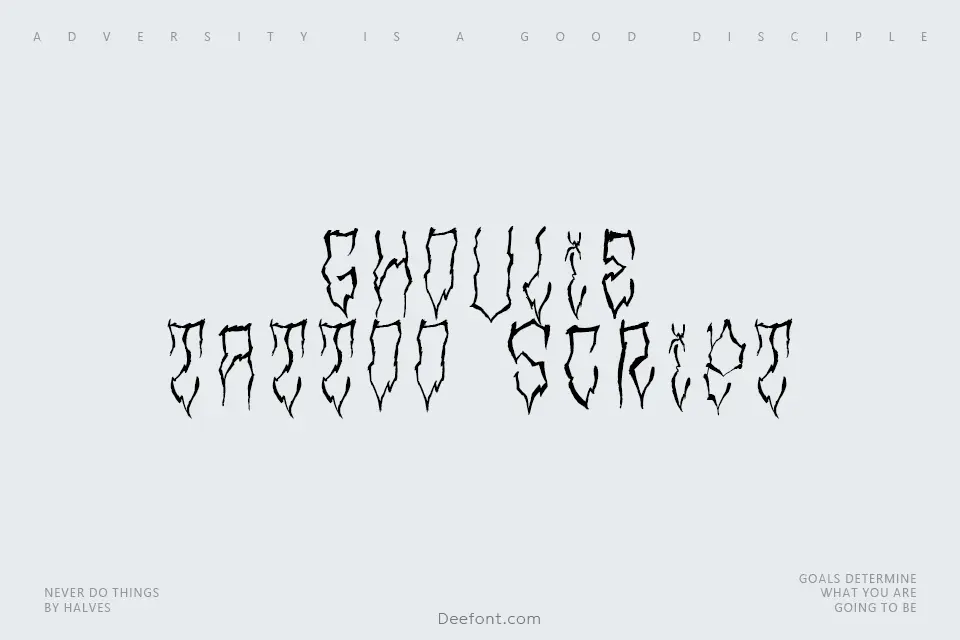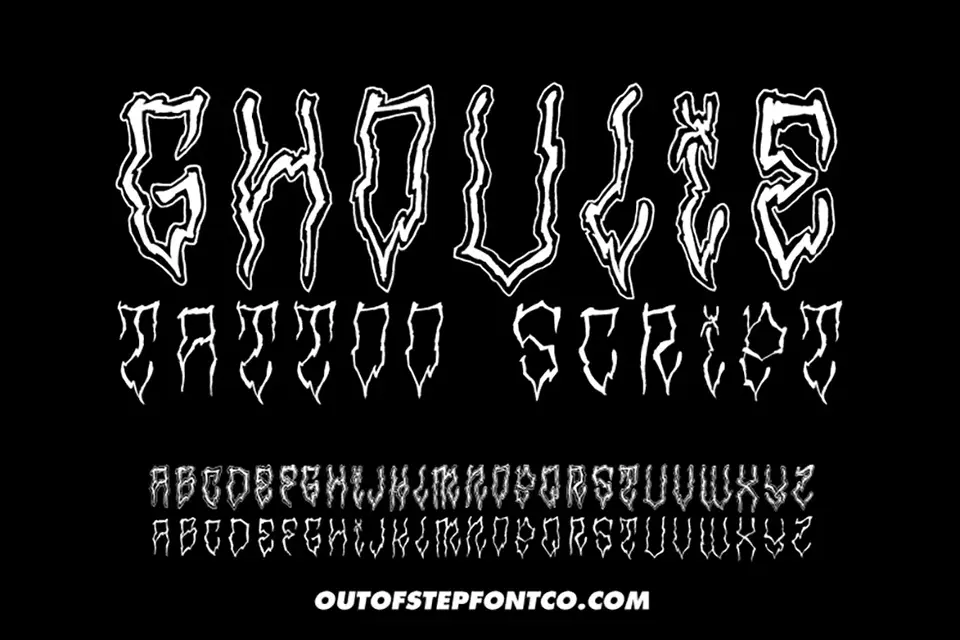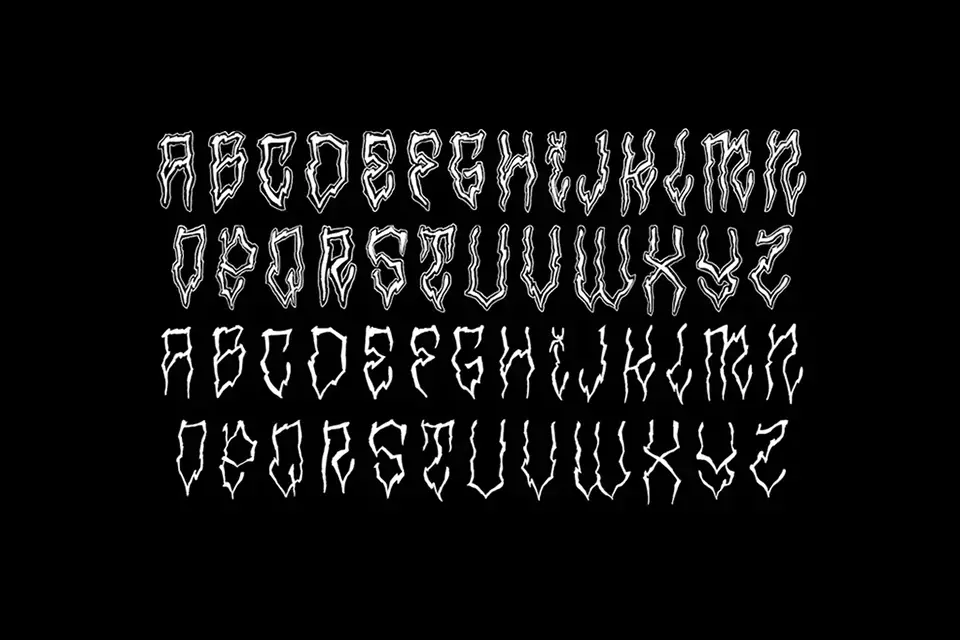
Ghoulie Tattoo Script Font
Ghoulie Tattoo Script is a distinctive hand-drawn tattoo font inspired by classic knuckle tattoo script designs. Created by an experienced font designer, this versatile typeface features authentic, edgy letterforms with minor imperfections that add character and authenticity. Perfect for tattoo flash designs, merch graphics, and creative projects requiring bold, artistic typography. The font combines traditional tattoo aesthetics with modern digital craftsmanship, making it ideal for those seeking authentic vintage tattoo-inspired lettering for both personal and commercial applications.
Designed by:Dan Steinbok (Out of Step Font Company)Website